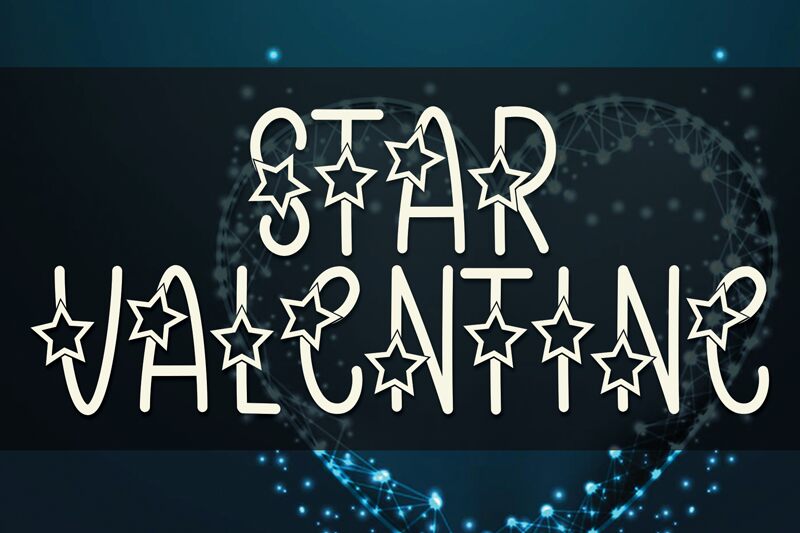
Star Valentine
Star Valentine font by Andi Moz is a decorative display typeface with an artistic presentation and themed embellishments. With a modern flair, this condensed font has an appealing whimsy that makes it ideal for attractive typography and novelty appeal.